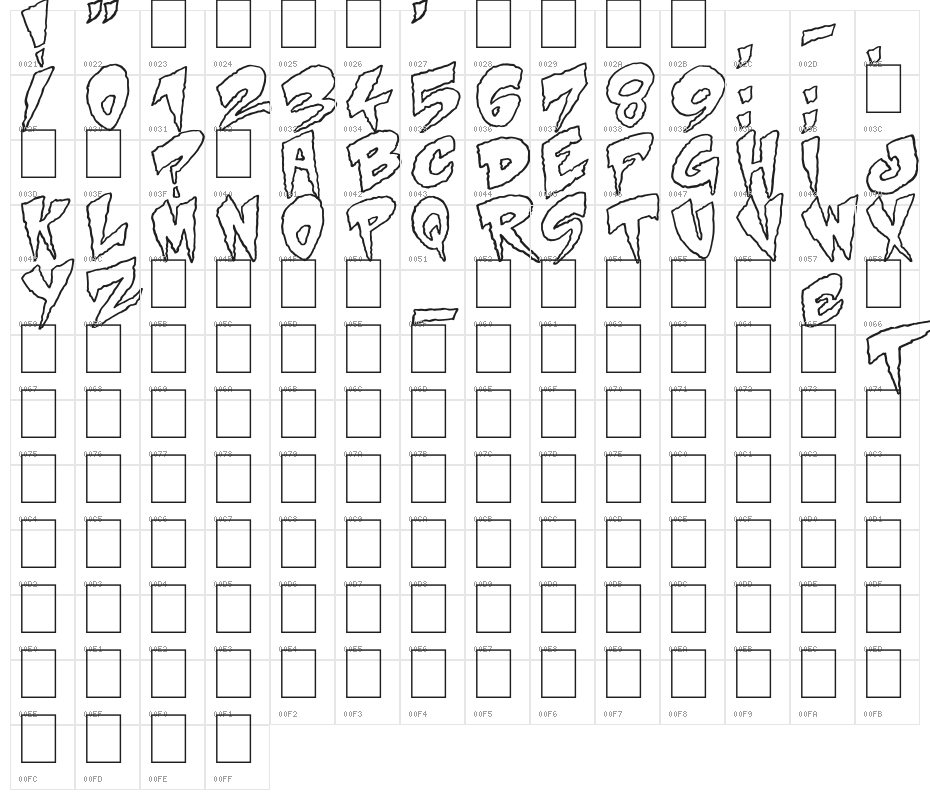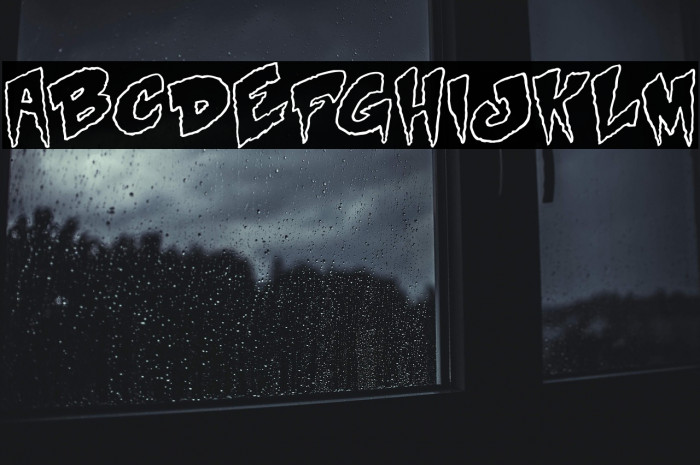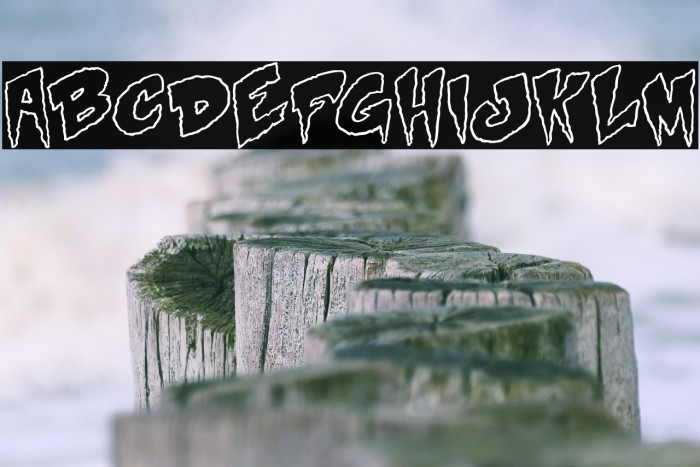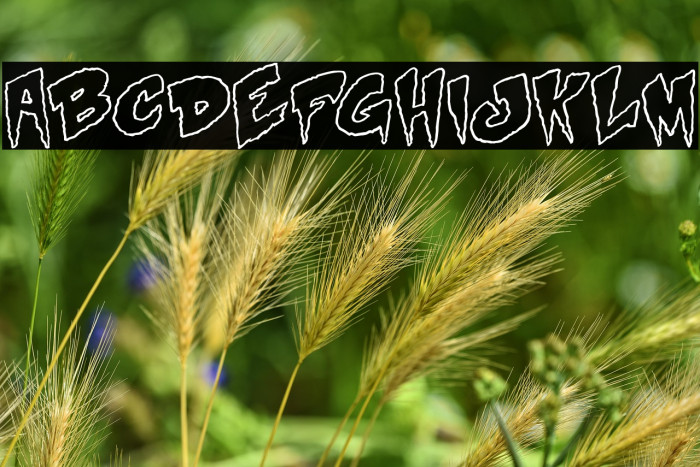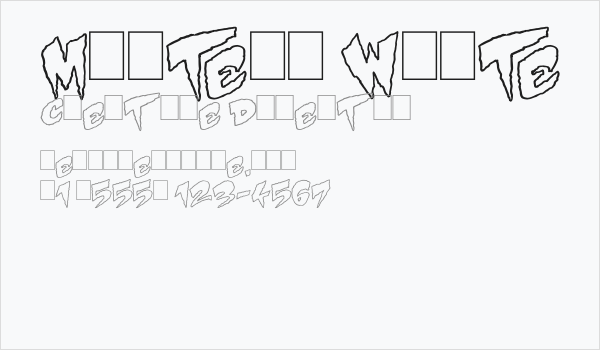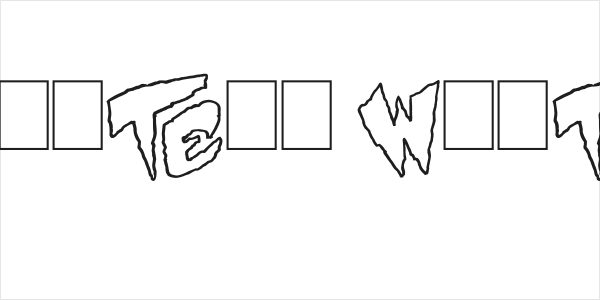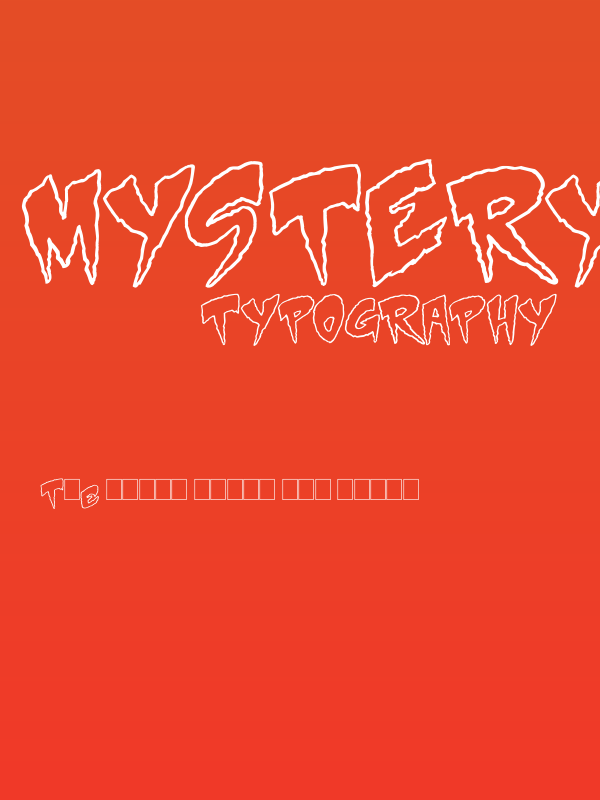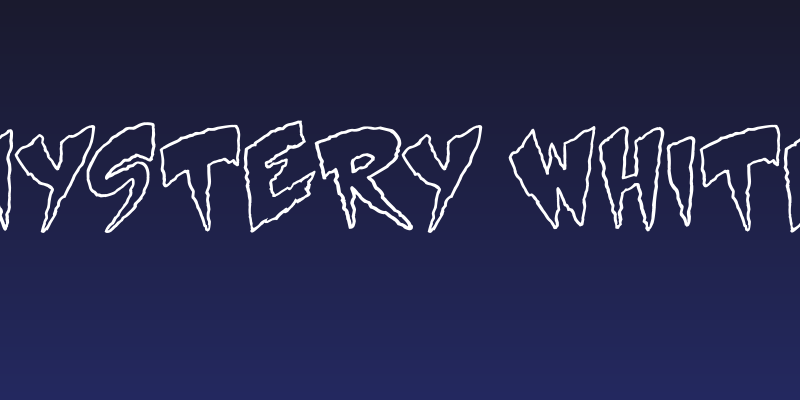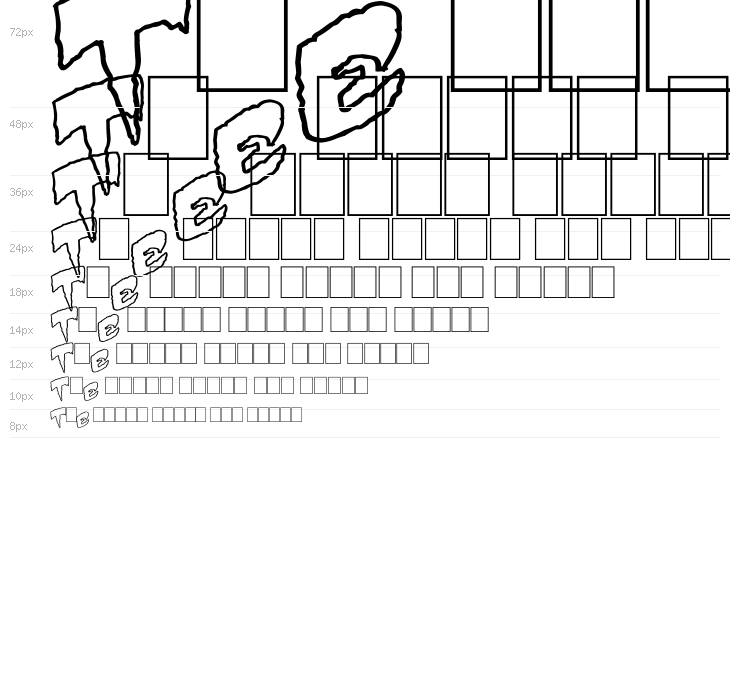
Mystery White Font
Mystery White Description
This font features a bold, jagged style with an energetic and dynamic appearance. The uppercase letters are sharply angled, giving a sense of movement and intensity. The numbers and special characters follow the same edgy design, making them stand out with a rebellious flair. The overall look is reminiscent of graffiti or street art, with a playful yet aggressive tone. The strokes are uneven, adding to the chaotic and spontaneous feel of the font, making it ideal for projects that require a bold statement.
| Overall Style | Modern, Energetic |
| Proposed Projects | Perfect for music album covers, skateboarding brands, streetwear designs, or any project needing a bold, rebellious aesthetic. |